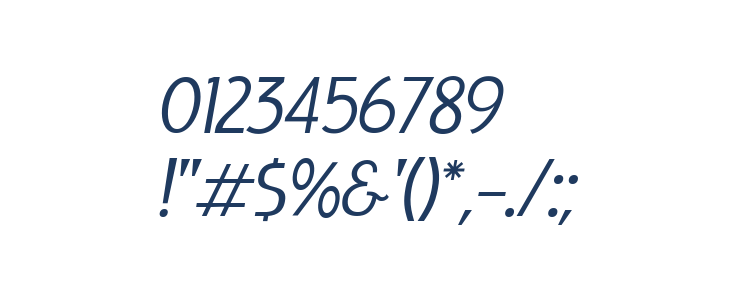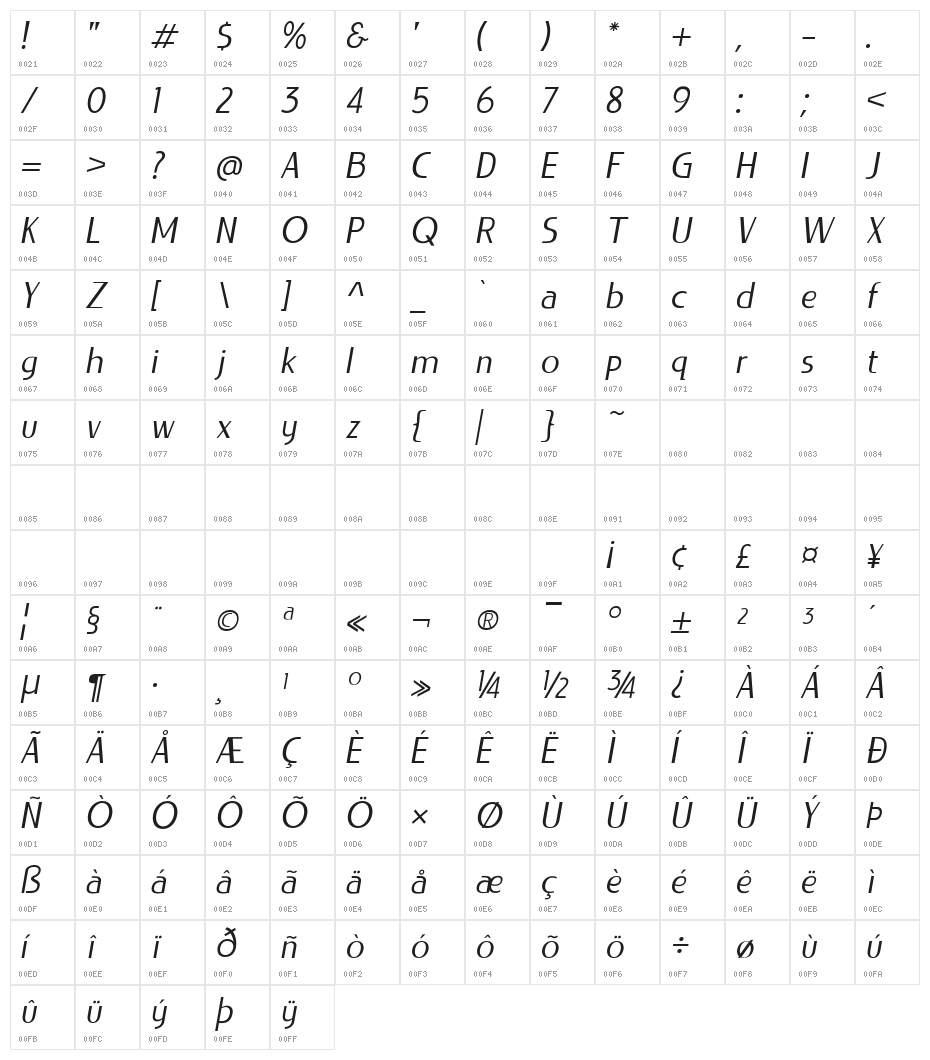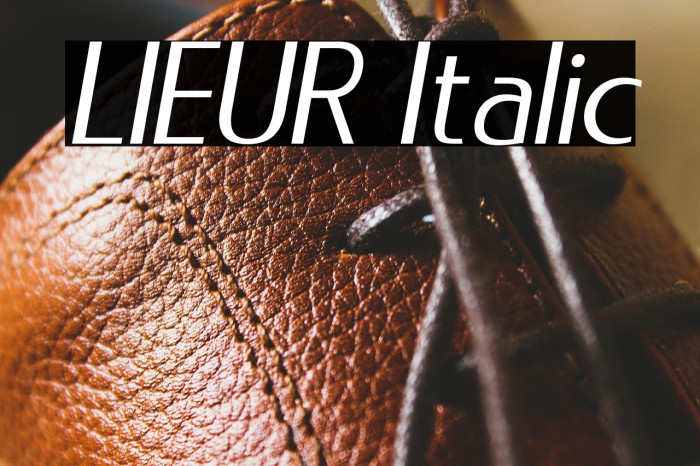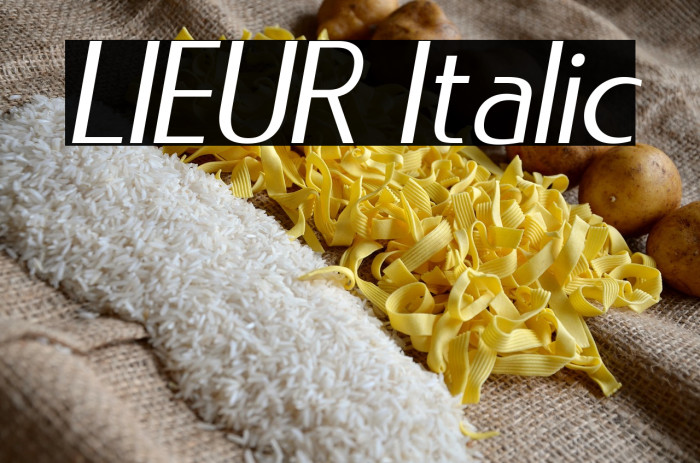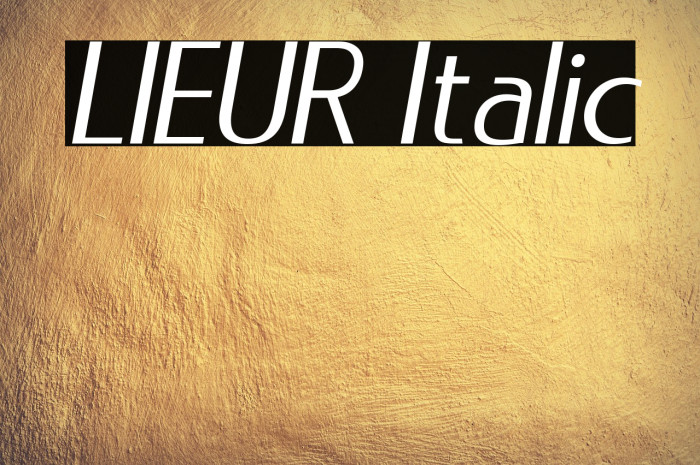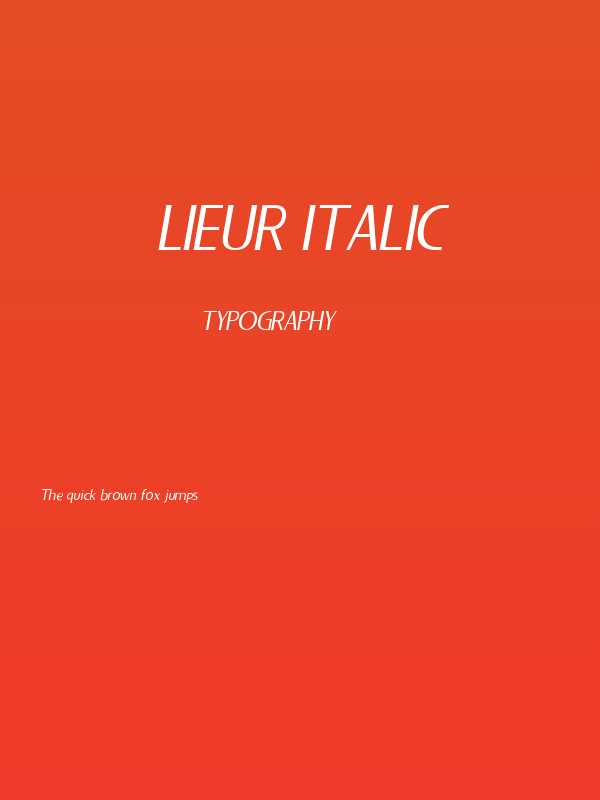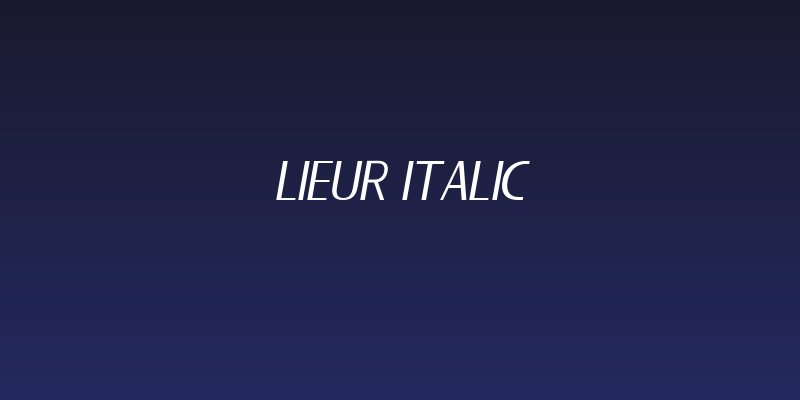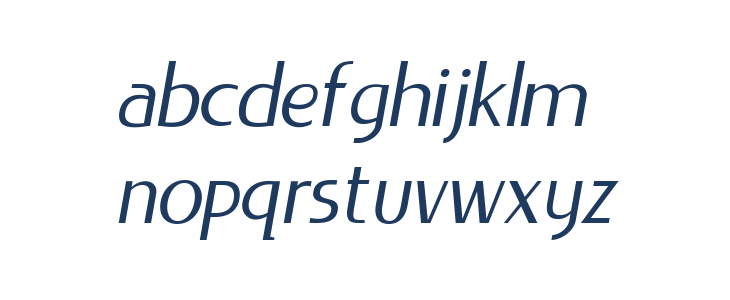
LIEUR Italic Font
LIEUR Italic Description
This font features a sleek and modern italic style, characterized by its smooth curves and clean lines. The letters are slightly slanted, giving a sense of motion and elegance. The uppercase and lowercase letters are well-proportioned, with a consistent stroke width that maintains readability. The numerals are clear and distinct, complementing the overall design. Special characters are included, adding versatility for various uses. The font's design is both professional and approachable, making it suitable for a wide range of applications.
| Proposed Projects | Ideal for branding, advertising, and editorial design projects where a modern and elegant touch is desired. |